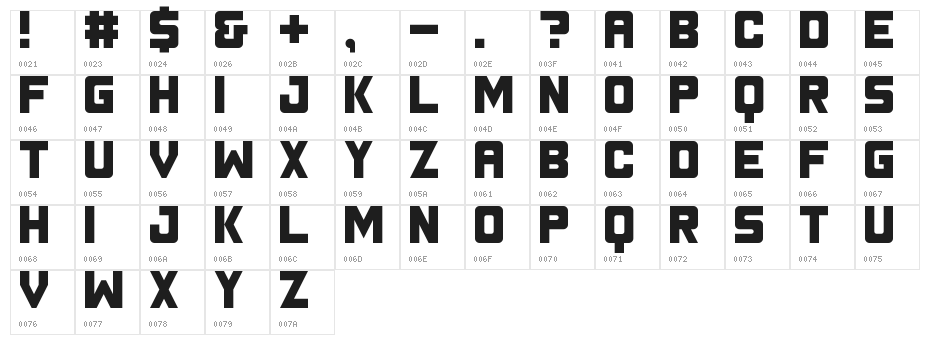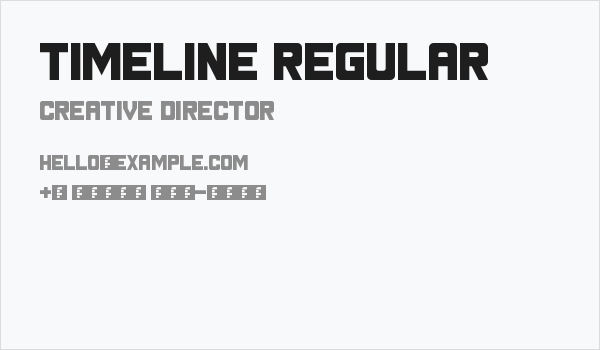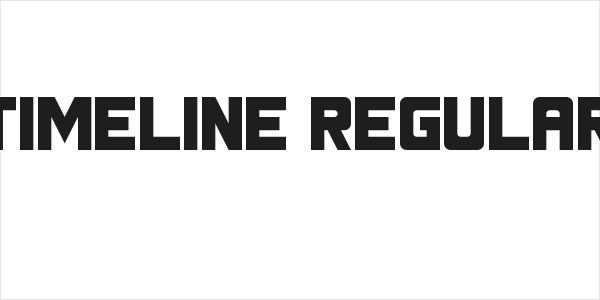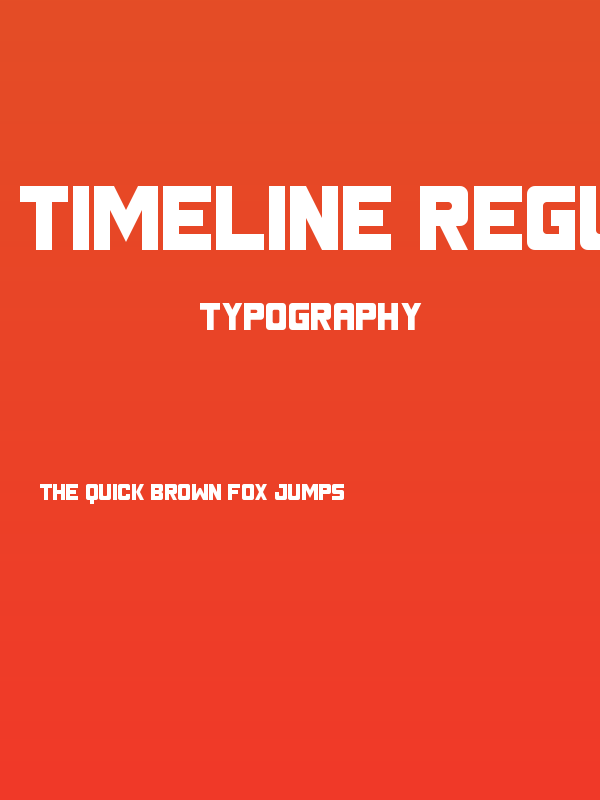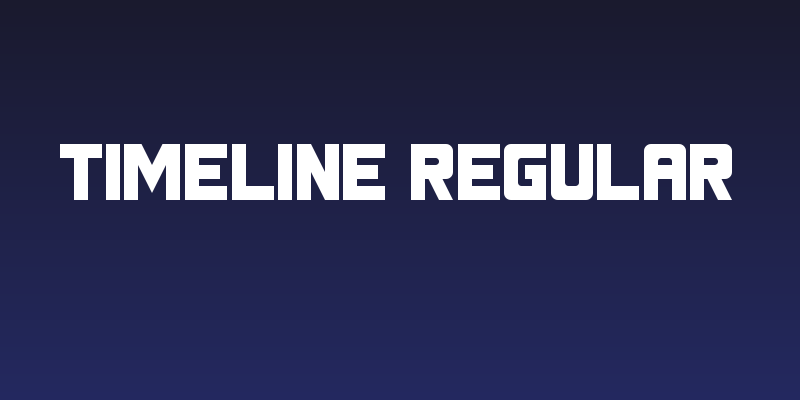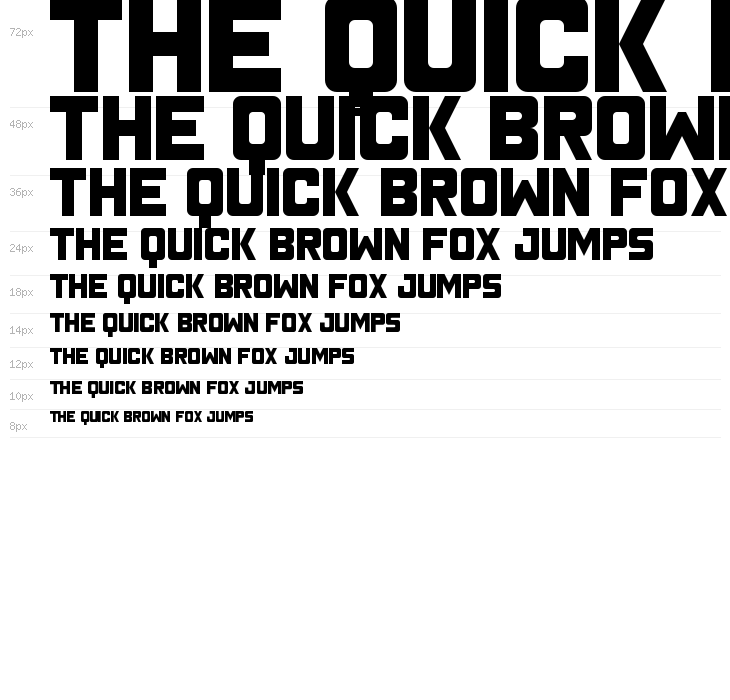
Timeline Regular Font
Timeline Regular Description
This typeface features a bold, geometric design with strong, angular lines and a modern aesthetic. The characters are uniformly structured, giving a sense of stability and strength. The uppercase letters are particularly striking, with a blocky appearance that commands attention. The lowercase letters maintain the same boldness, ensuring consistency across the typeface. Numbers and special characters are designed to match the overall style, providing a cohesive look. The font's design is suitable for projects that require a modern, impactful presence.
| Proposed Projects | Ideal for branding, posters, headlines, and any design requiring a strong, modern aesthetic. |